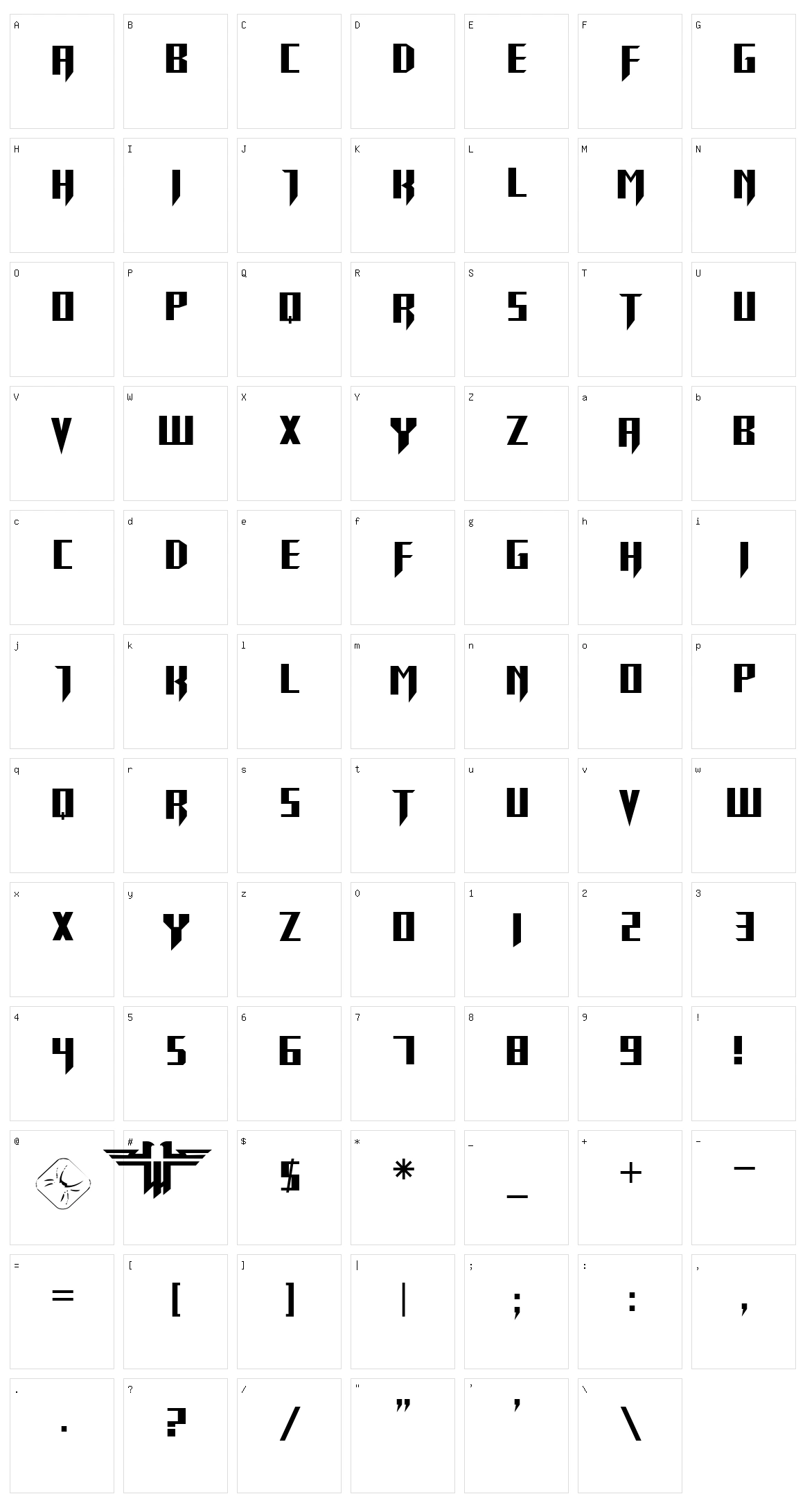
Return To Castle
Designed by: Atrax
:: autorem tego fonta jest ATRAX Rafa³ Brzeziñski
font zawiera du¿e i ma³e litery oraz niektóre znaki interpunkcyjne.
The font RETURN TO CASTLE that was designed by me,
contains large letters, digits
and some punctuations.
Return To Castle Character Set